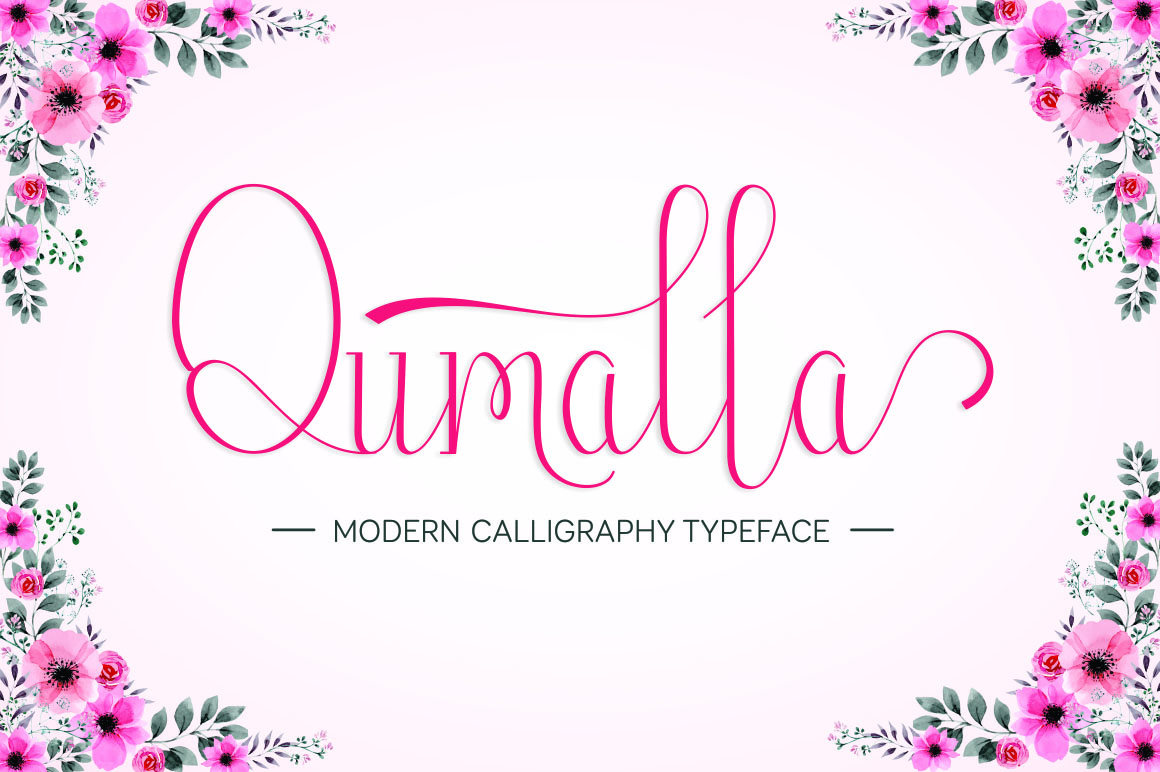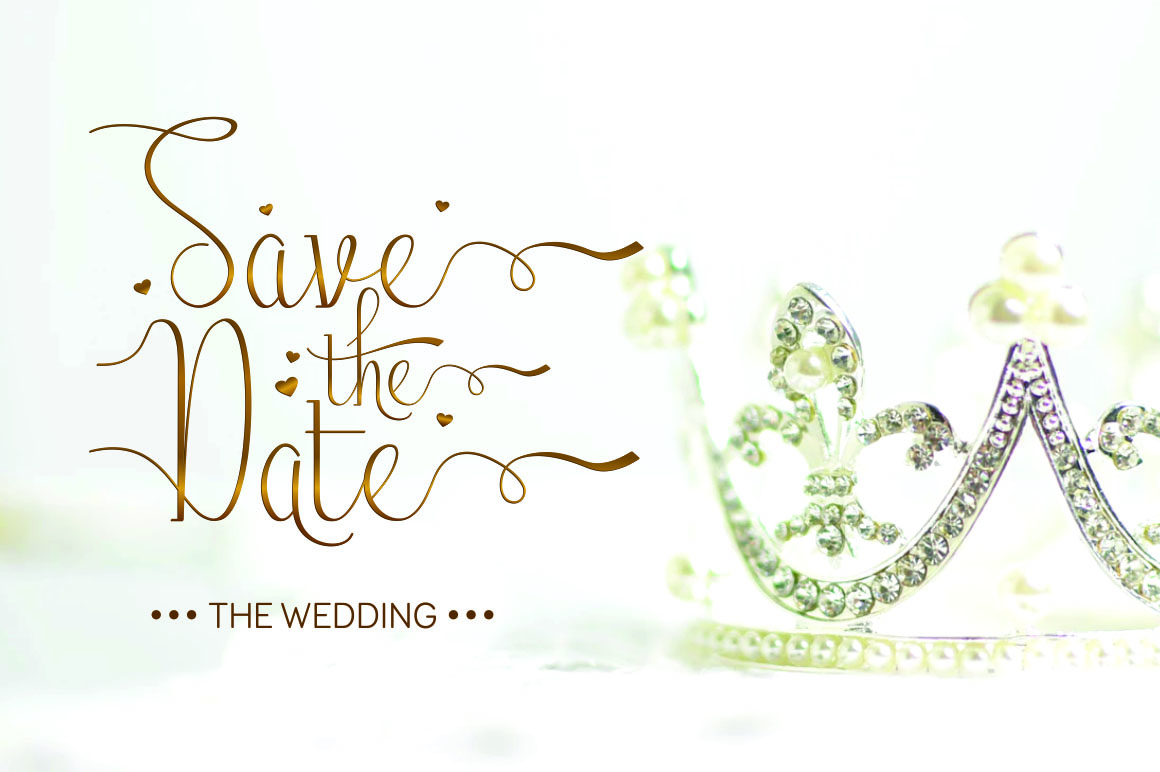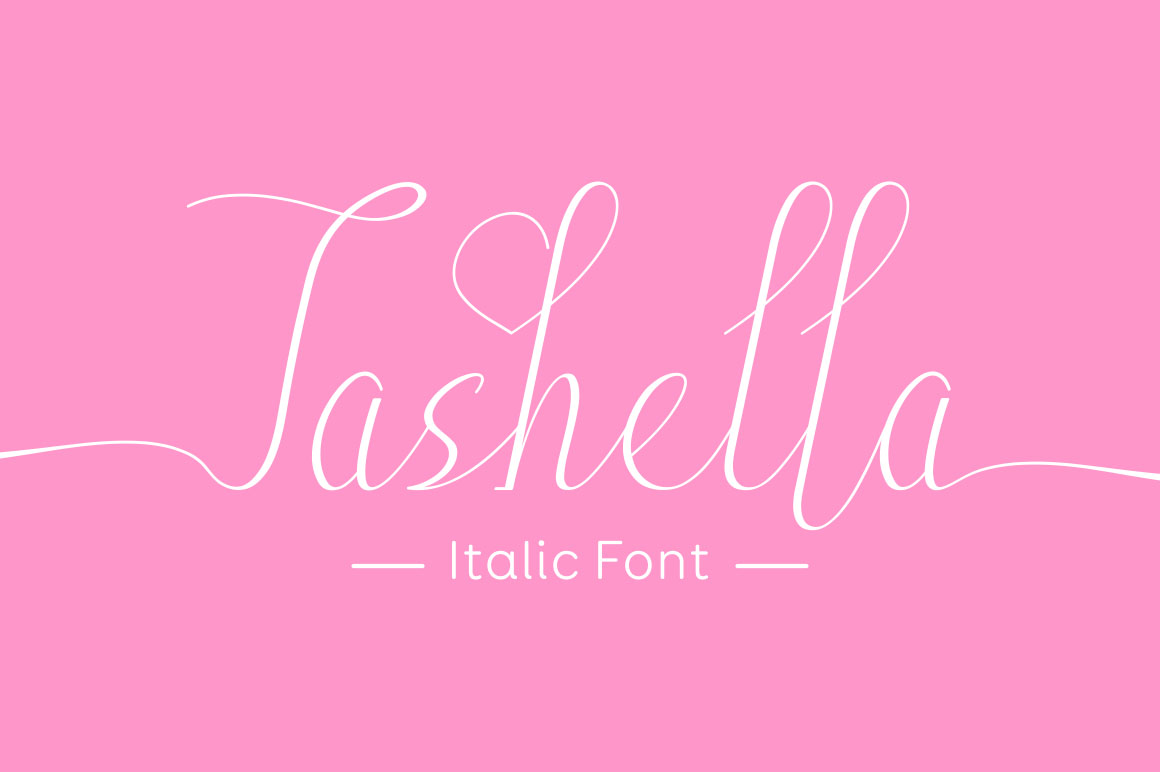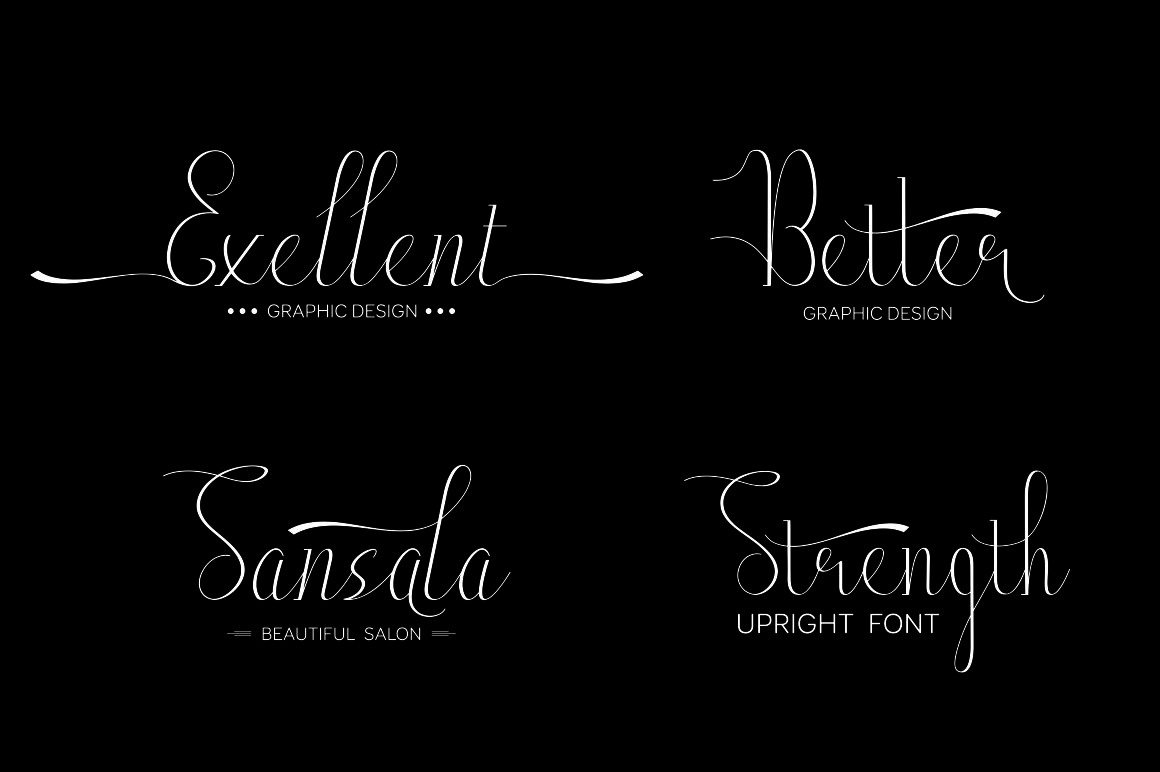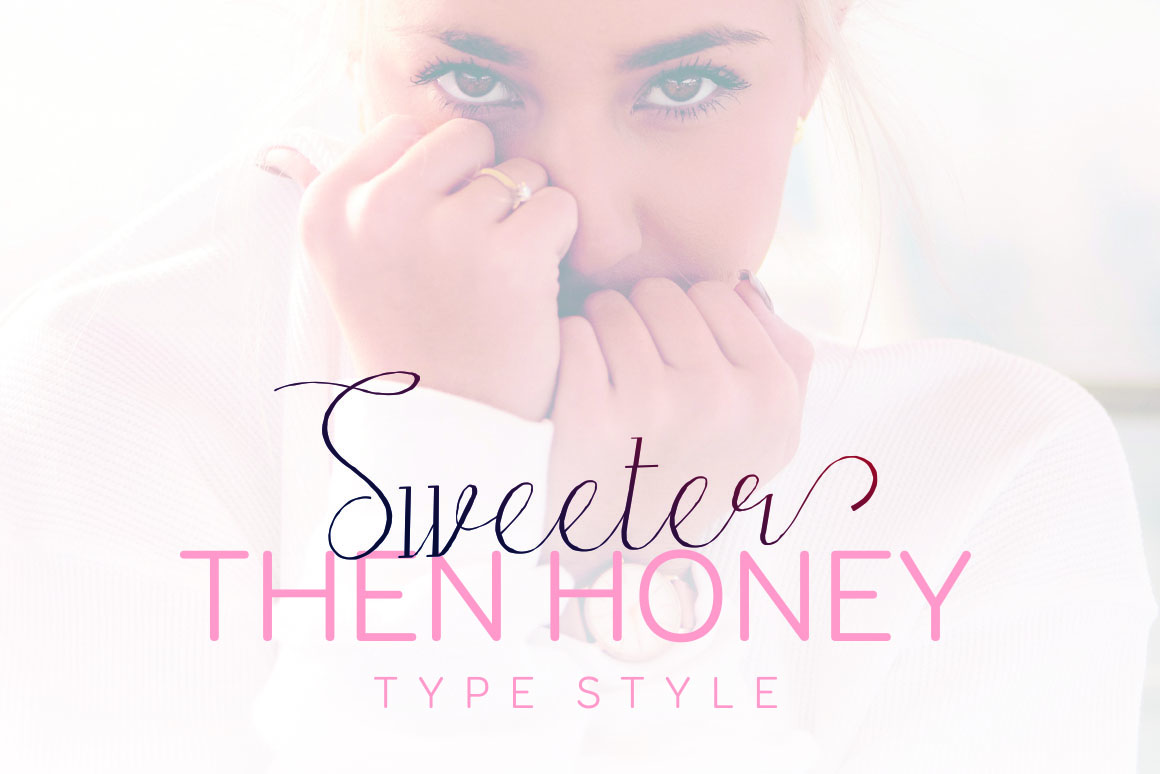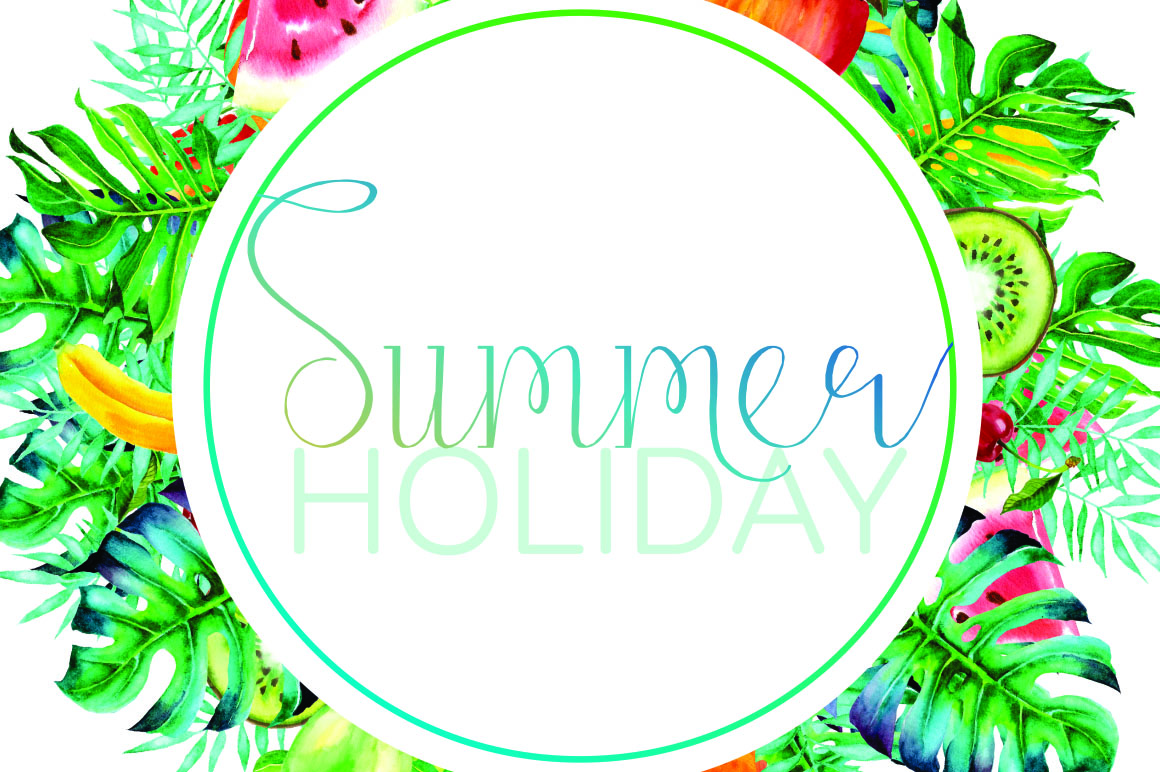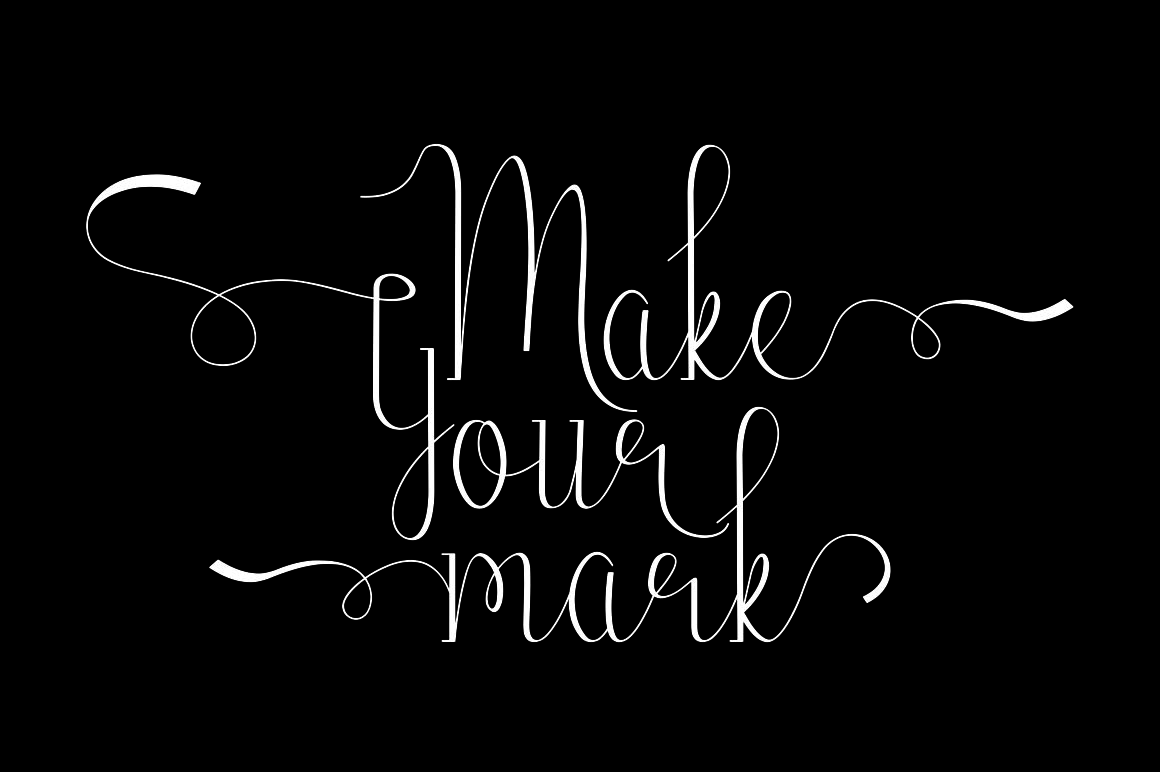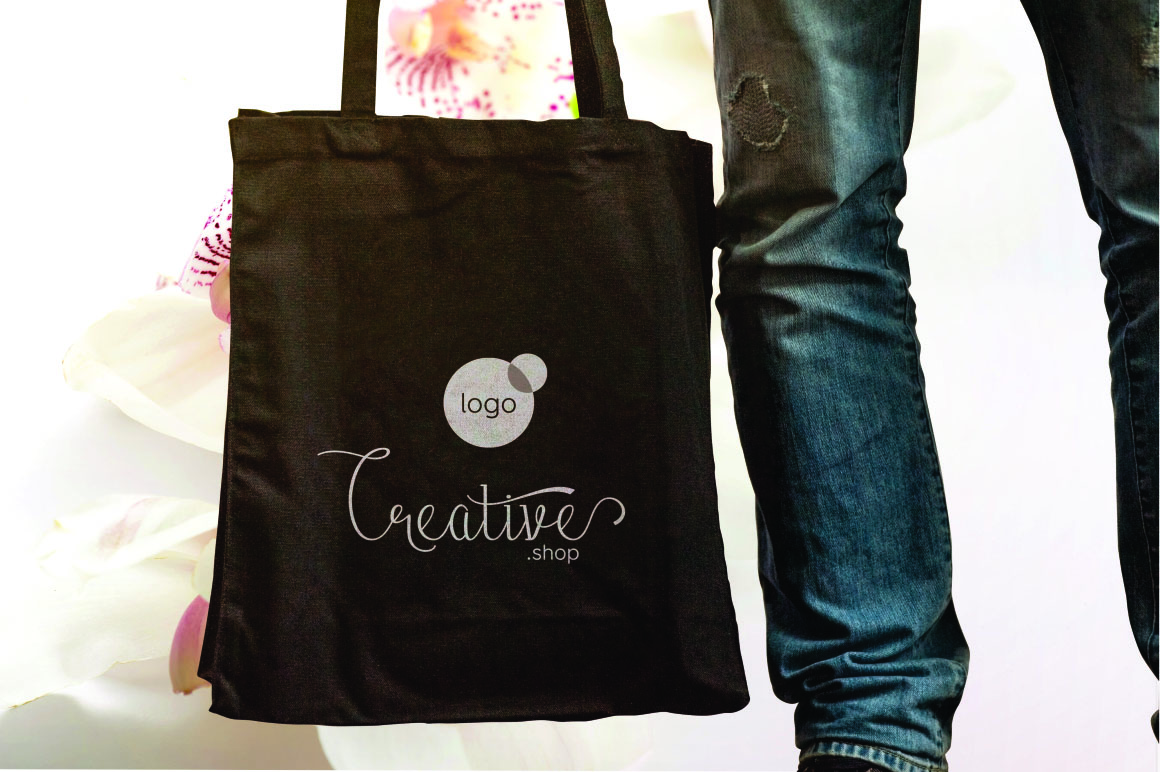
Qumalla Font
About Qumalla Font
Qumalla is a connecting script with dancing baseline, which is designed to convey elegance and style. It is clean, feminine and friendly. Give your designs a homemade touch with Qumalla, a beautiful font!